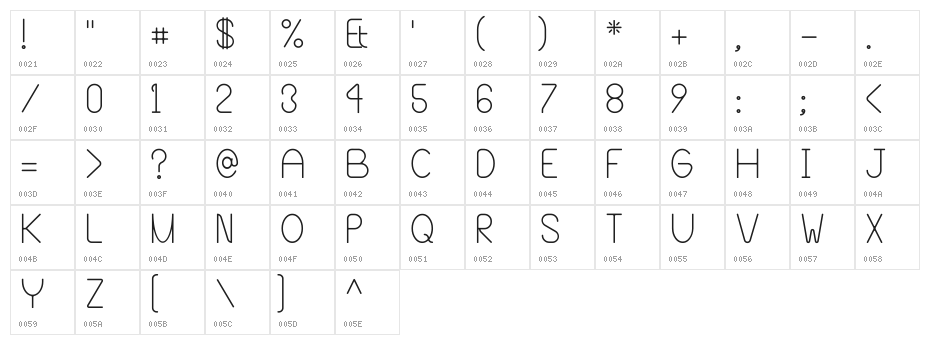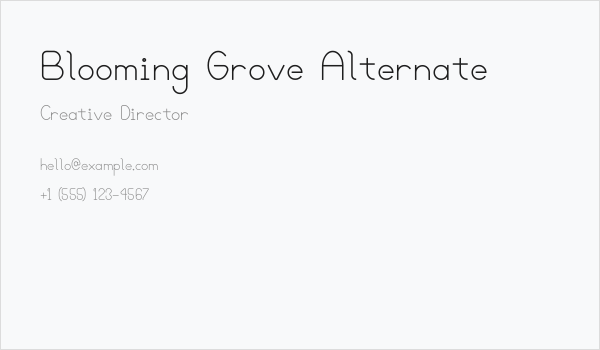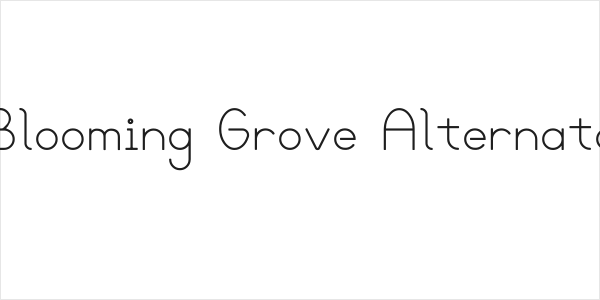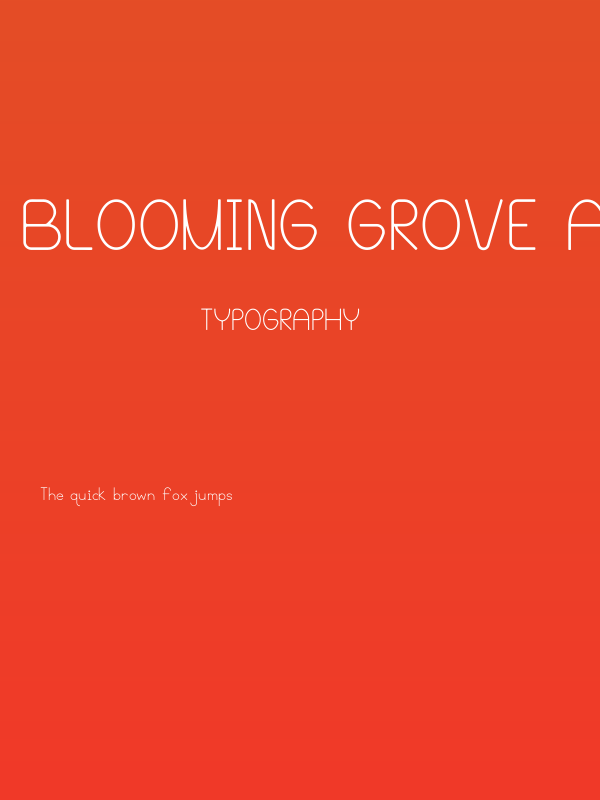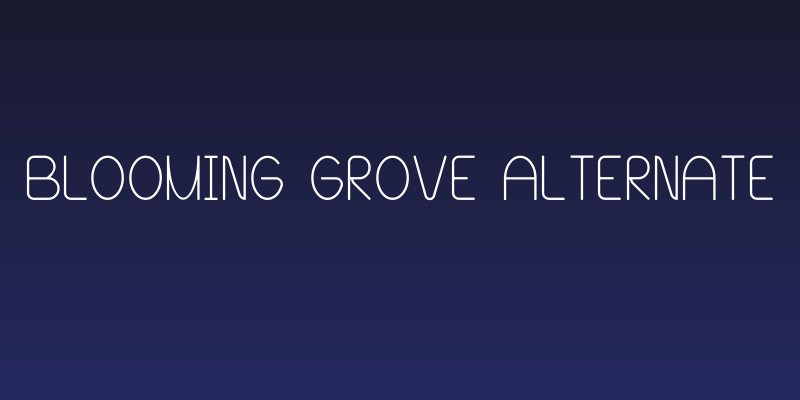
Blooming Grove Alternate Font
Blooming Grove Alternate Description
This font features a clean and modern design with rounded edges and a geometric structure. The uppercase letters are uniform in height, creating a balanced and harmonious appearance. The lowercase letters maintain a consistent style, with some unique characteristics such as the dot accents on the 'i' and 'j'. The numerals are clear and legible, with a slightly elongated form that complements the overall aesthetic. Special characters are well-integrated, maintaining the font's minimalist and contemporary feel. This font is versatile, suitable for both digital and print media, and works well in various design contexts.